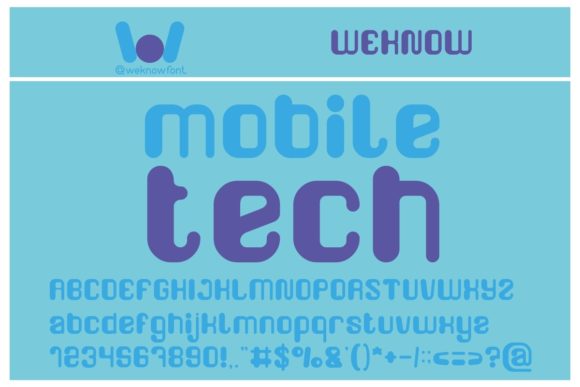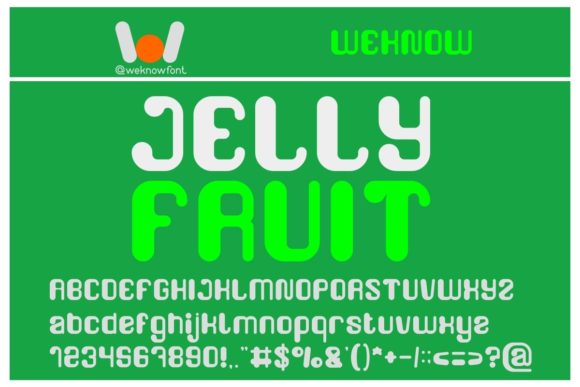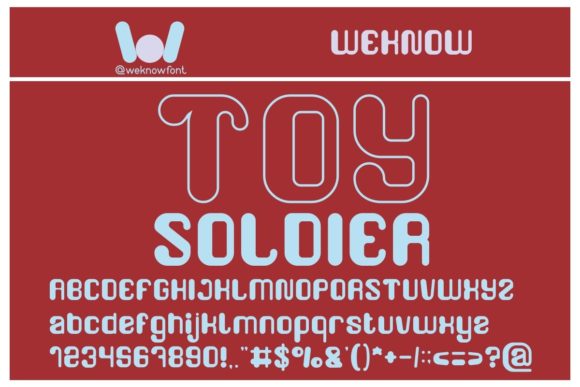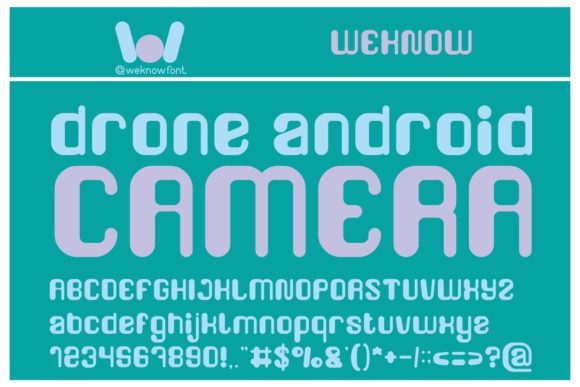
Introducing Friendly Robot Font: The Ultimate Techno-Themed Design Companion
Are you a designer or crafter looking for a versatile and modern font to elevate your creative projects? Look no further than the Friendly Robot Font! This techno-themed font is perfect for a wide range of applications, from logos and branding to headlines, posters, and social media graphics.
What Makes Friendly Robot Font So Special?
Friendly Robot Font is a carefully crafted, techno-inspired typeface that’s suitable for various design projects. Its unique and futuristic style makes it an excellent choice for:
- Logo design: Create a lasting impression with a bold and memorable logo that showcases your brand’s personality.
- Logotype: Use Friendly Robot Font to craft a distinctive and eye-catching logotype that sets your brand apart.
- Headline font: Make a statement with attention-grabbing headlines that exude a sense of innovation and modernity.
- Corporate identity: Establish a strong brand presence with a font that conveys professionalism and cutting-edge technology.
- Brand identity: Develop a consistent visual identity that resonates with your target audience.
- Apparel industry: Add a touch of futurism to your clothing and accessory designs.
- Poster design: Create striking posters that capture attention and leave a lasting impression.
- Music, movie, and game design: Add a dash of techno flair to your creative projects.
- Magazine and book design: Elevate your publication’s visual appeal with a modern and engaging font.
- Comic and cartoon design: Bring your characters to life with a font that’s playful and fun.
- Social media graphics: Stand out on social media with eye-catching graphics that showcase your brand’s personality.
- Website design: Enhance your website’s user experience with a clean, modern, and highly legible font.
Key Features of Friendly Robot Font
Friendly Robot Font boasts a range of features that make it an excellent choice for designers and crafters:
- Techno-inspired design: A unique and futuristic style that’s perfect for modern designs.
- Versatile: Suitable for a wide range of applications, from logos to social media graphics.
- Modern and clean: A highly legible font that’s perfect for digital and print designs.
- Playful and fun: Adds a touch of whimsy and personality to your designs.
Why Choose Friendly Robot Font?
Friendly Robot Font is the perfect choice for designers and crafters who want to add a touch of modernity and personality to their designs. With its techno-inspired design, versatility, and ease of use, this font is sure to become a staple in your design toolkit.
In conclusion, Friendly Robot Font is a must-have for designers and crafters looking to elevate their creative projects. With its unique techno-inspired design, versatility, and ease of use, this font is perfect for a wide range of applications. Whether you’re designing a logo, poster, or social media graphic, Friendly Robot Font is the perfect choice. So go ahead, get creative, and make your designs shine with Friendly Robot Font!